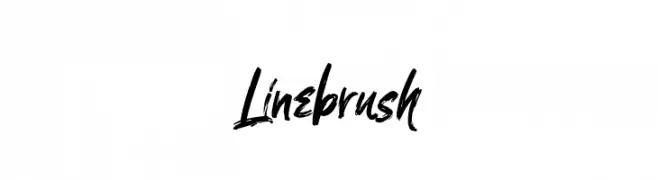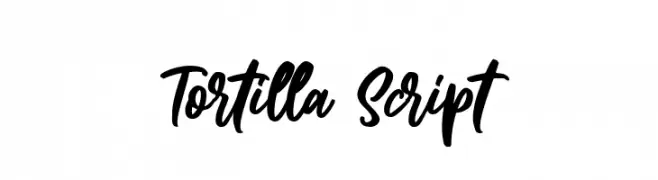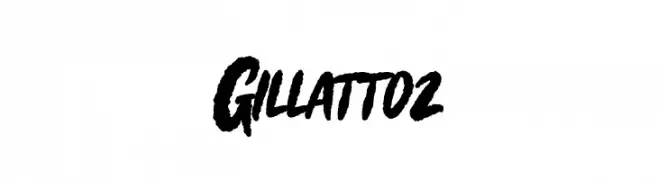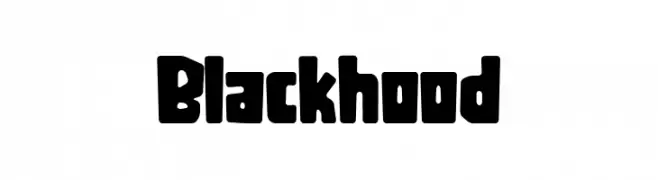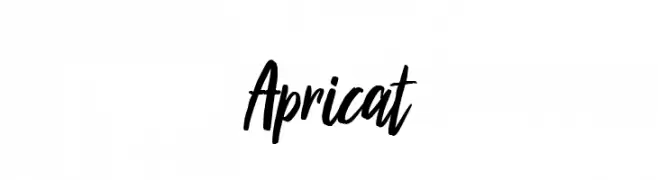
A dynamic brush-style font with bold, sweeping strokes and an artistic, hand-painted appearance.
A bold, lively script font with flowing strokes and playful curves.
A dynamic and elegant script font with a handwritten appearance.
A bold, hand-painted style font with dynamic, expressive strokes.
A bold, chunky font with playful, irregular shapes and rounded edges.
A bold, expressive script font with dynamic, flowing letterforms.
A bold, brush-style handwritten font with dynamic strokes.
A lively handwritten font with a playful and energetic style.
A bold, dynamic script font with a modern, artistic flair.
A bold, brush-style handwritten font with a lively and dynamic appearance.